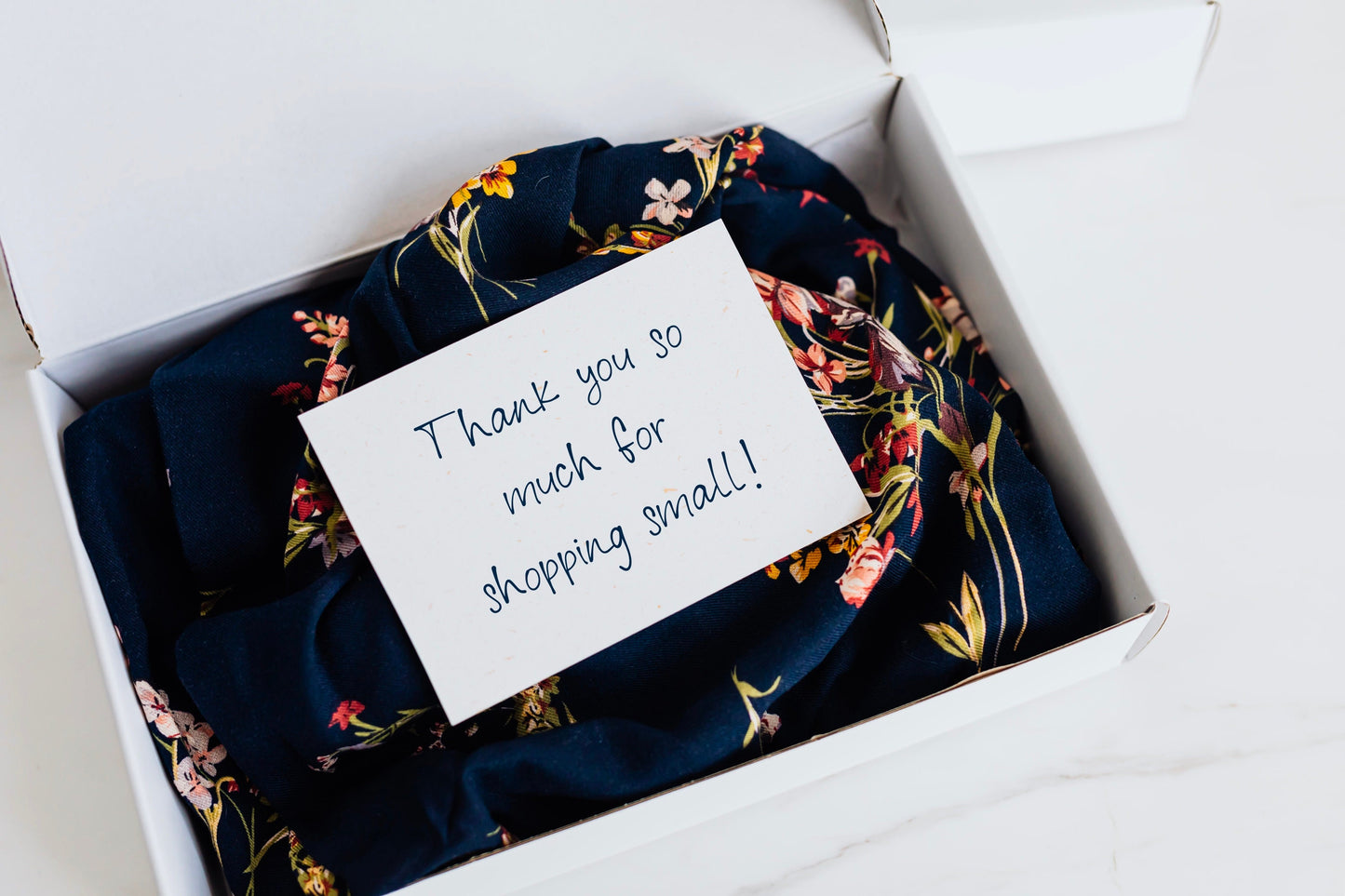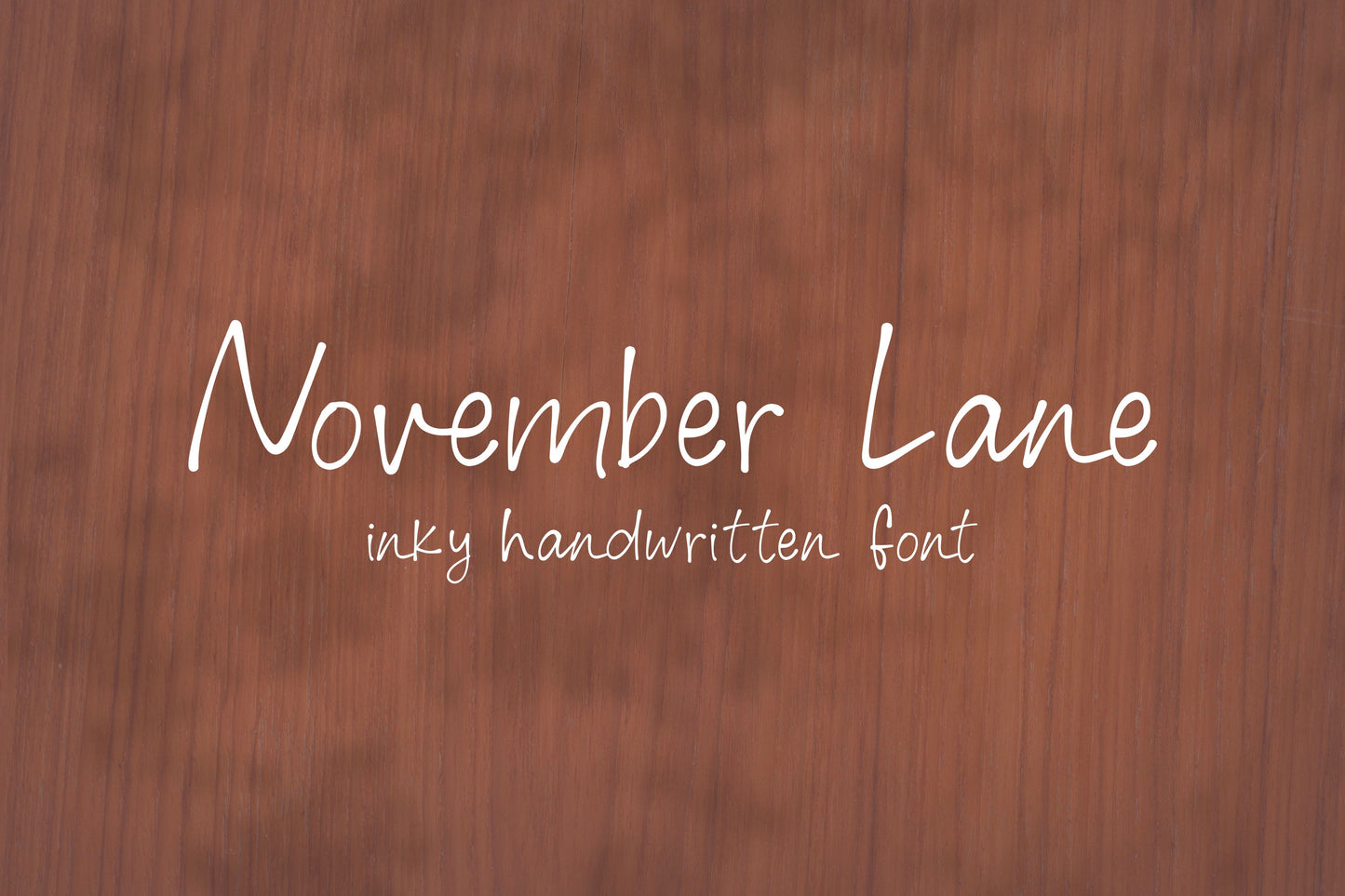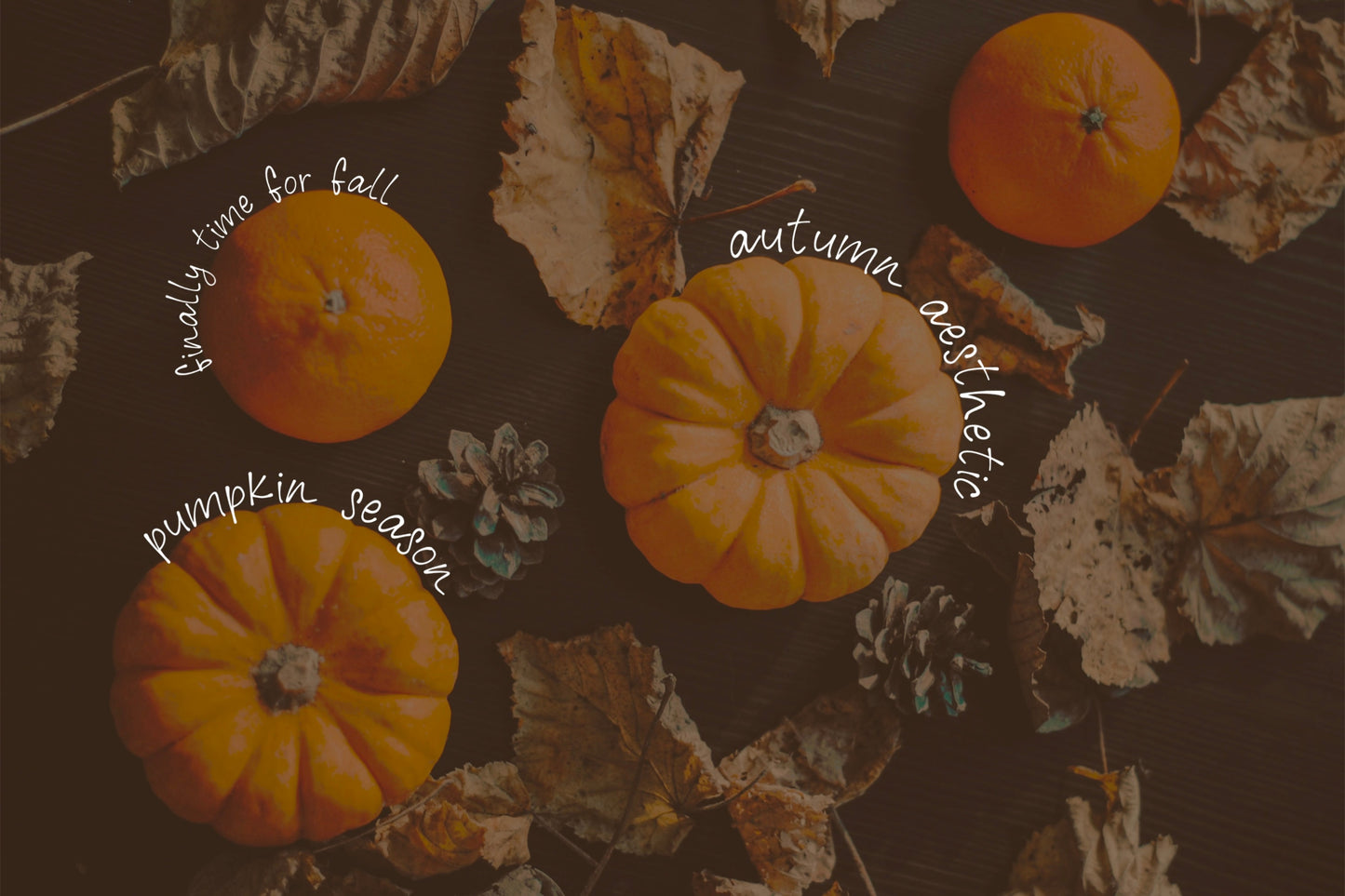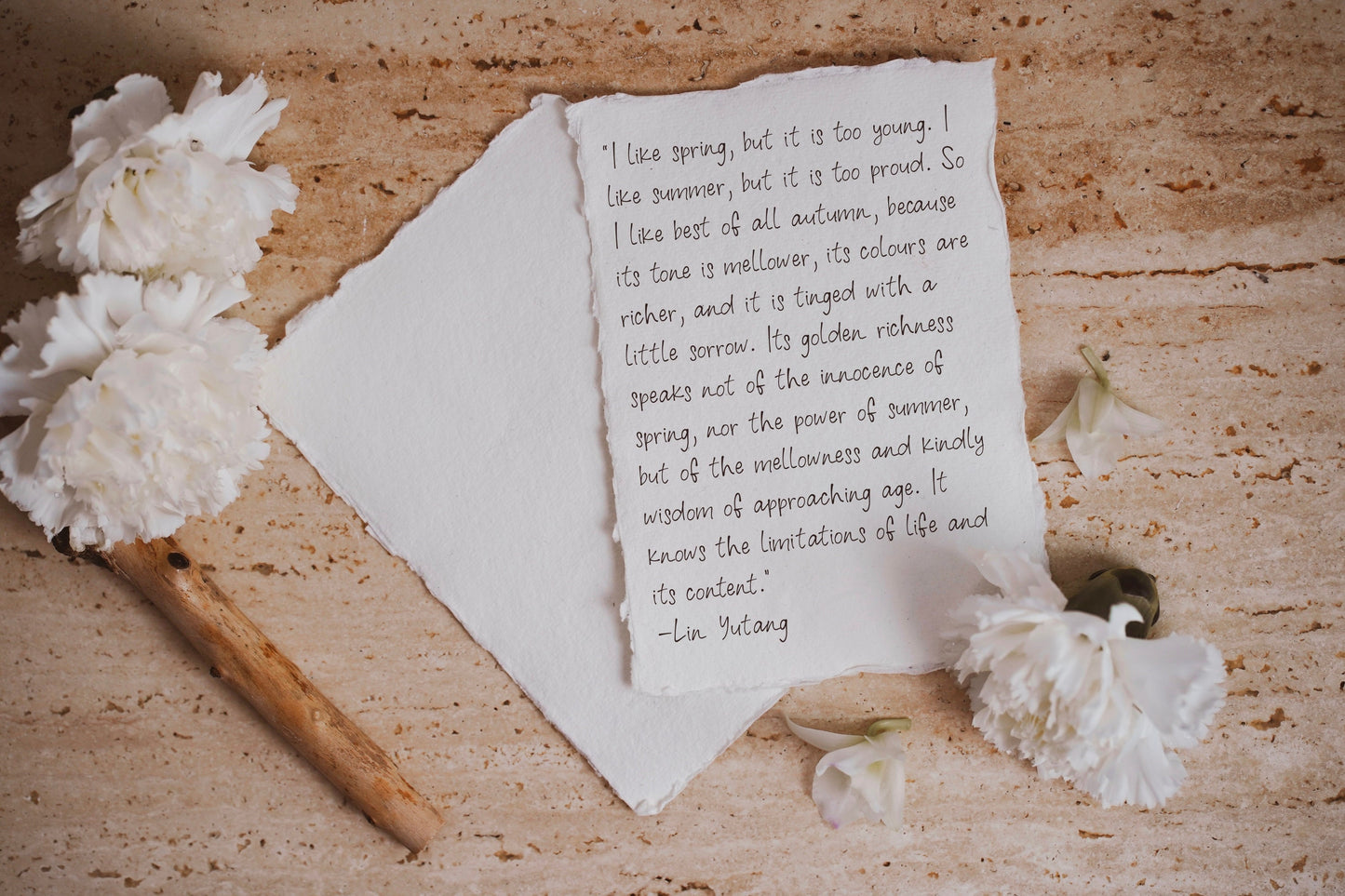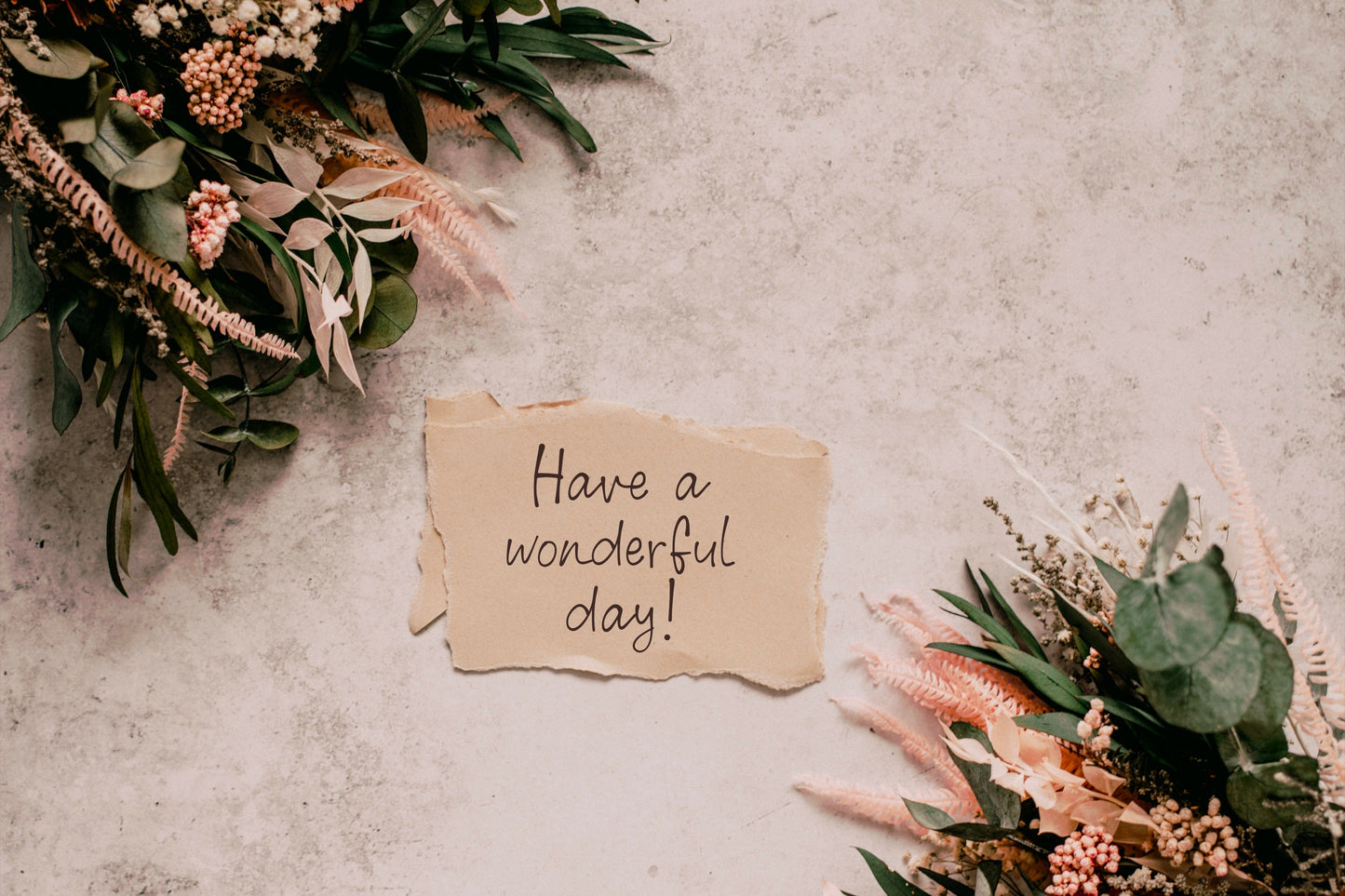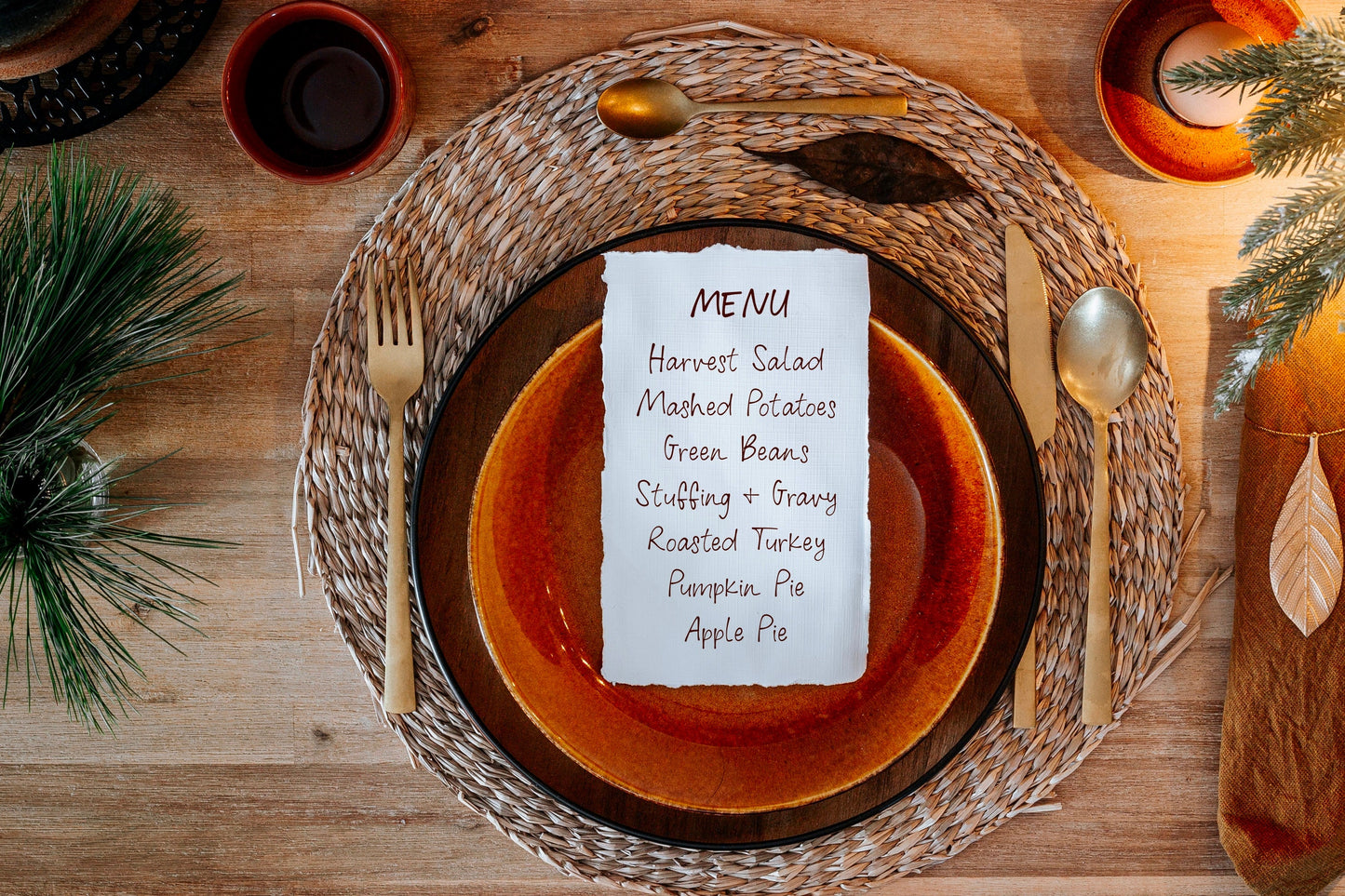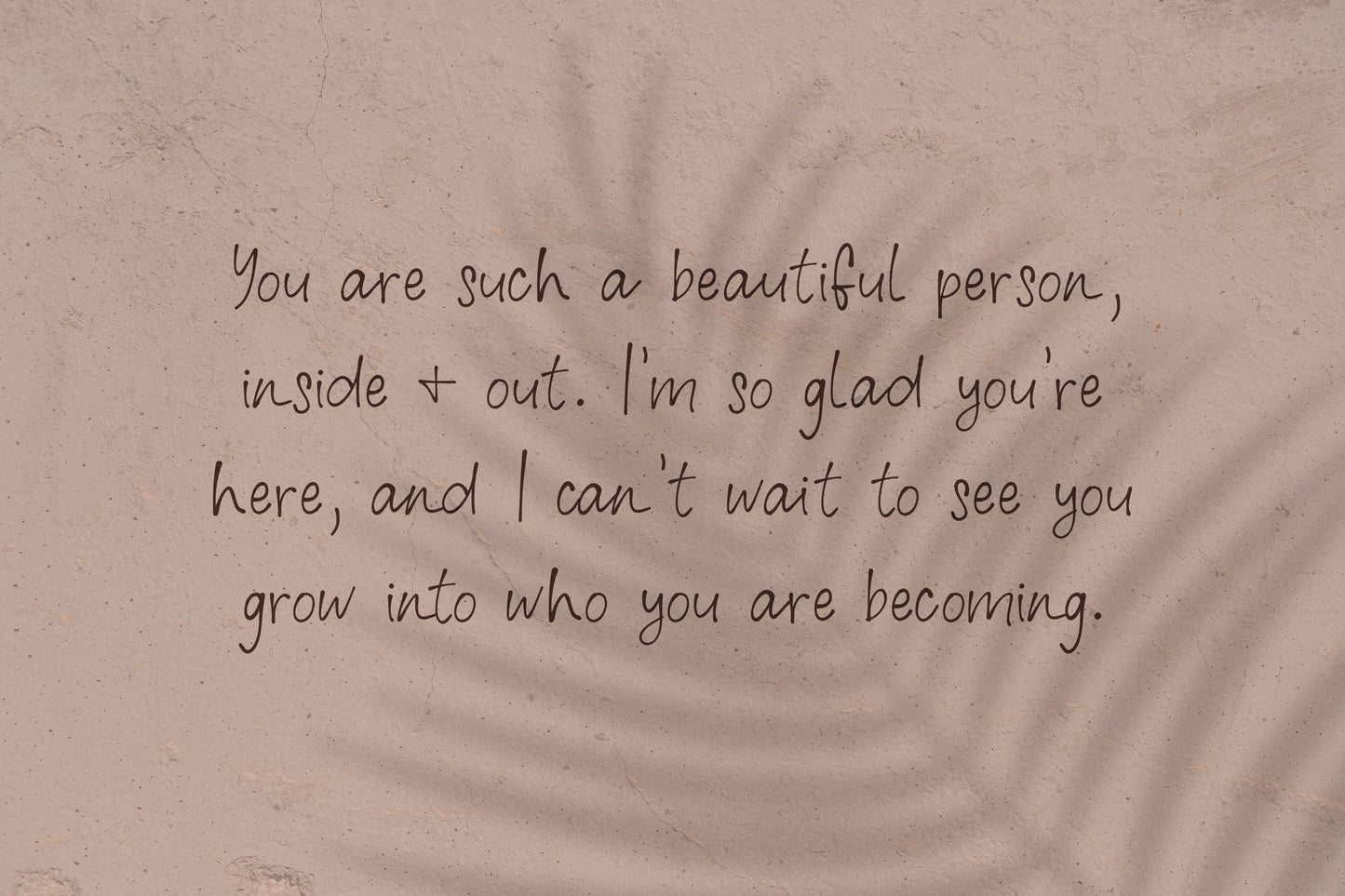
November Lane Handwritten Font
This is my November Lane handwritten/hand drawn font. November Lane is an inky, messy font with a natural, organic flow. It’s perfect for Instagram designs, quotes, t-shirts, stickers, posters, invitations, magazines, you name it!